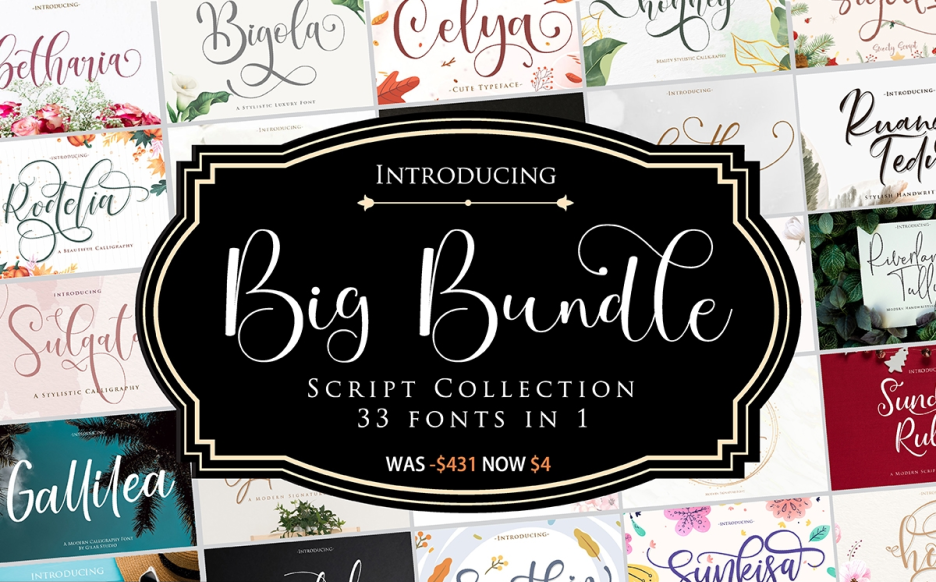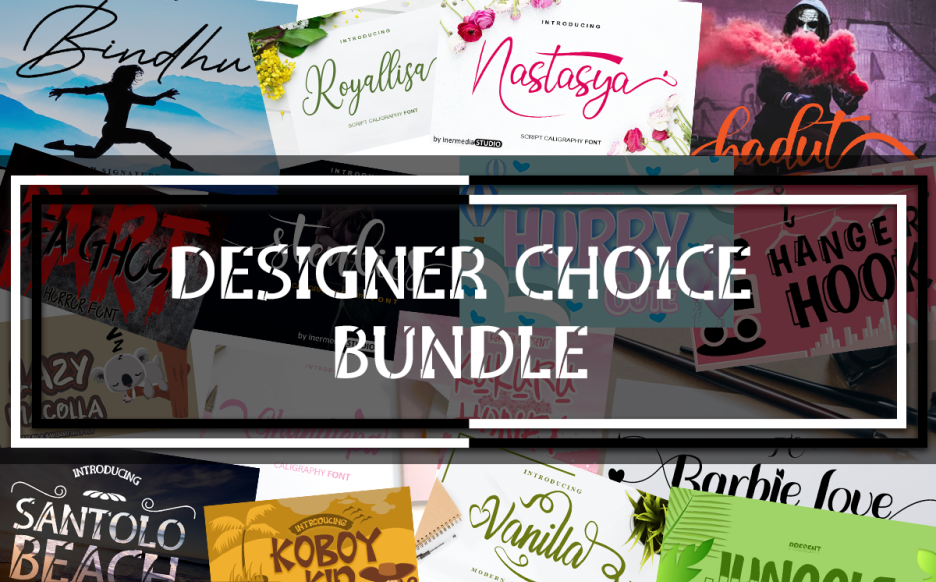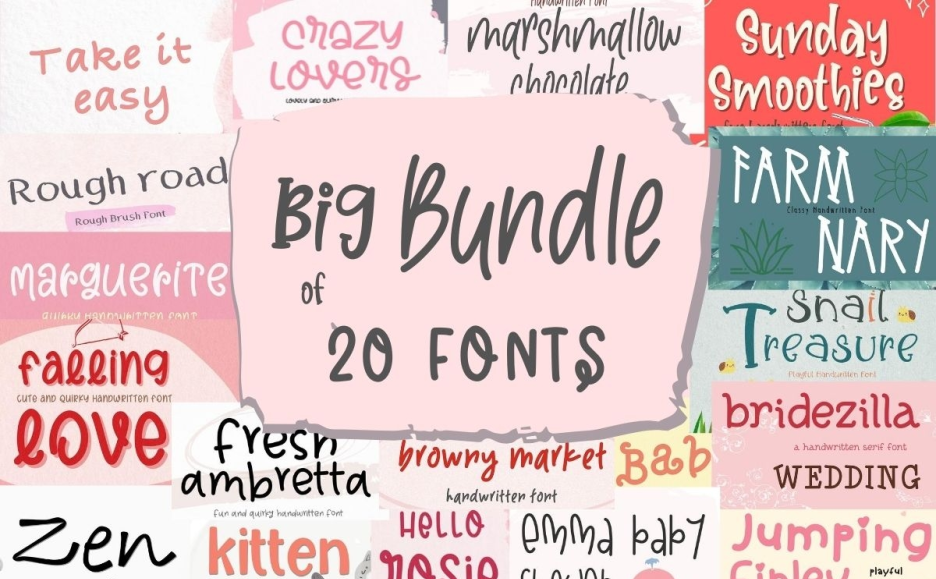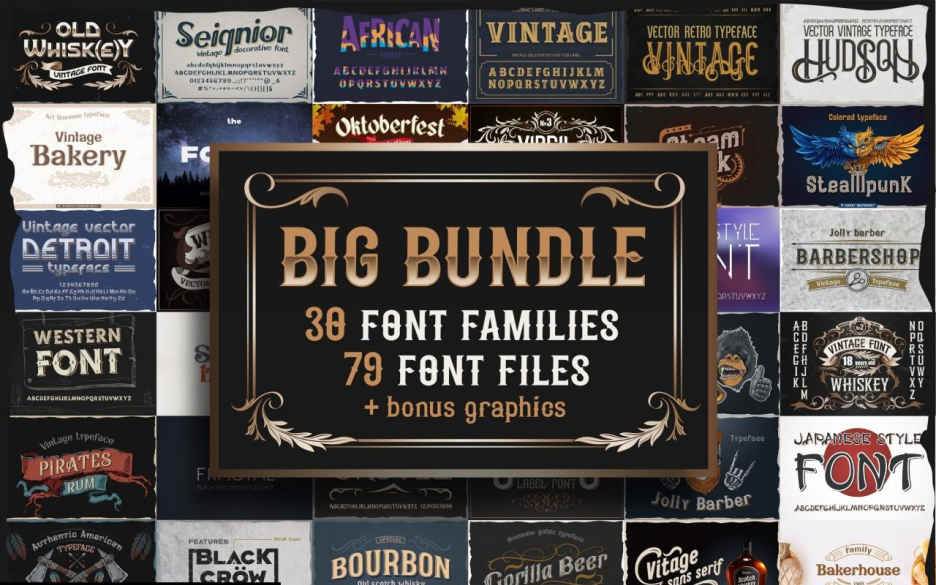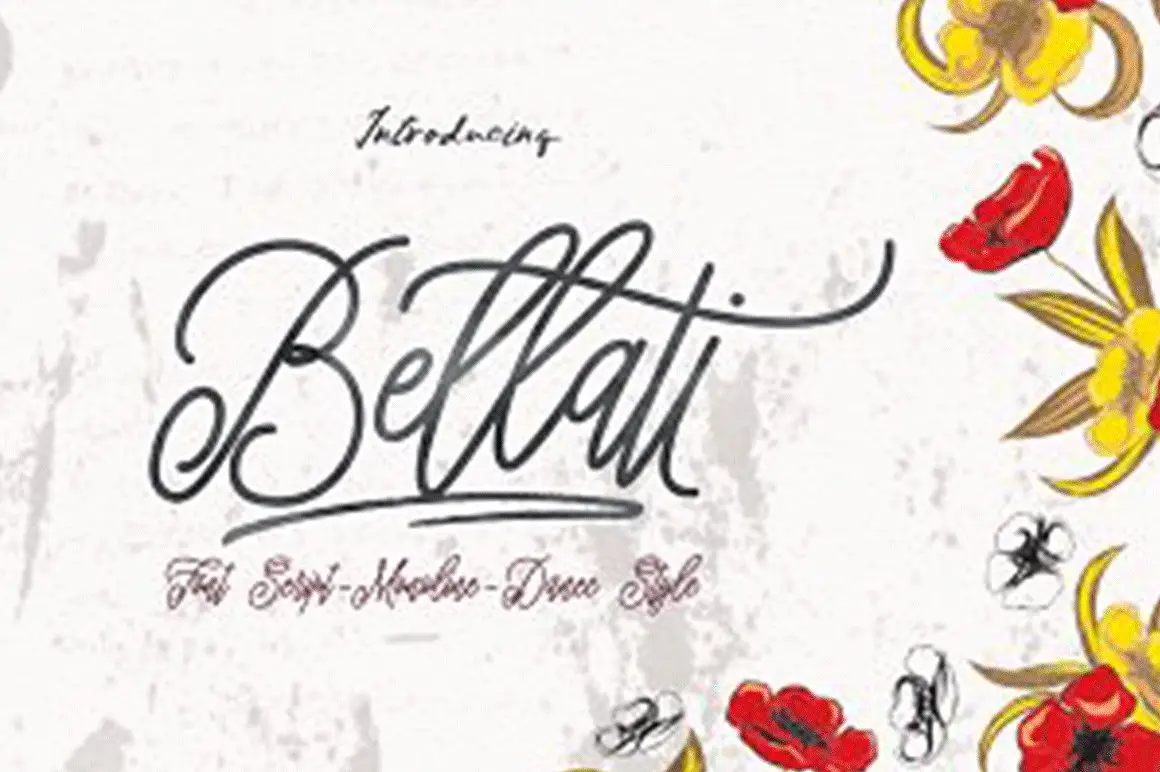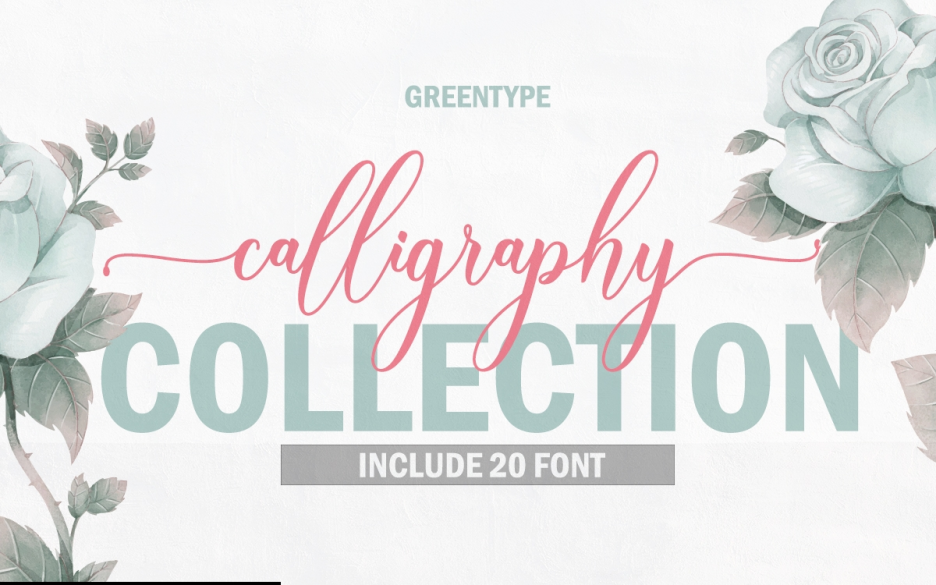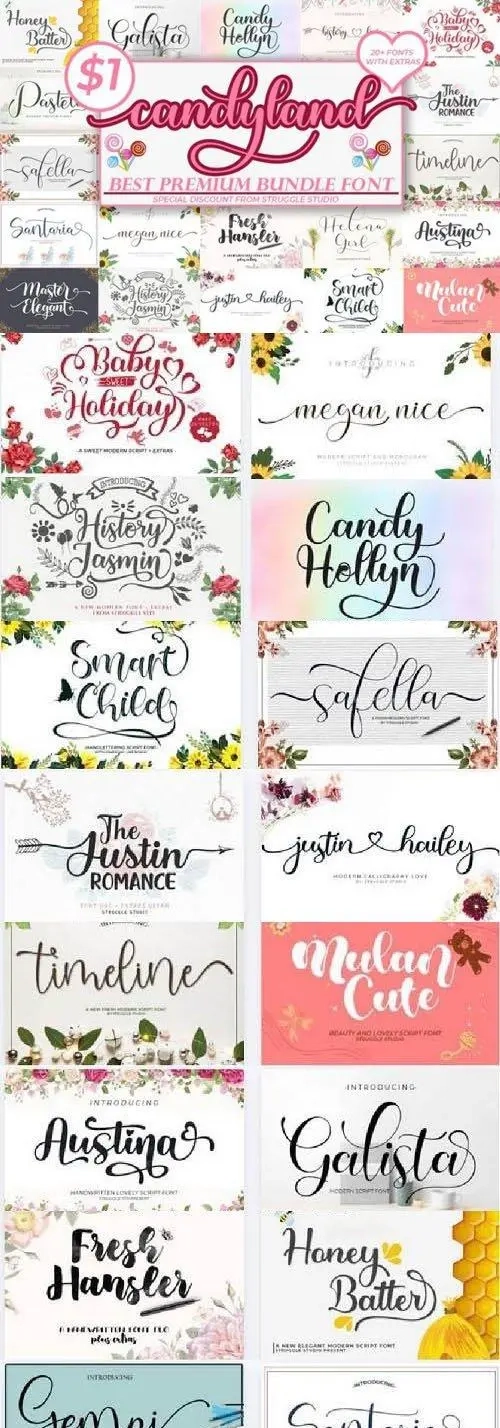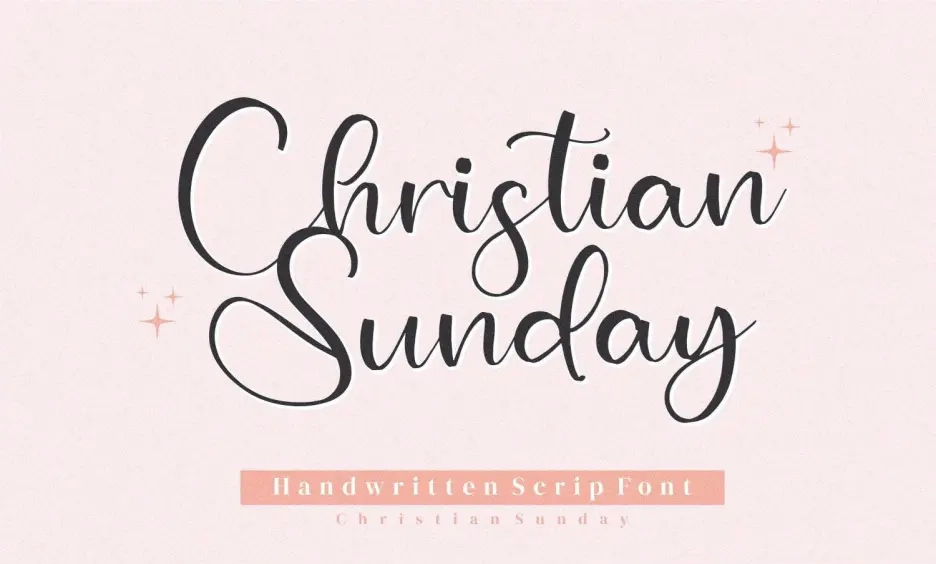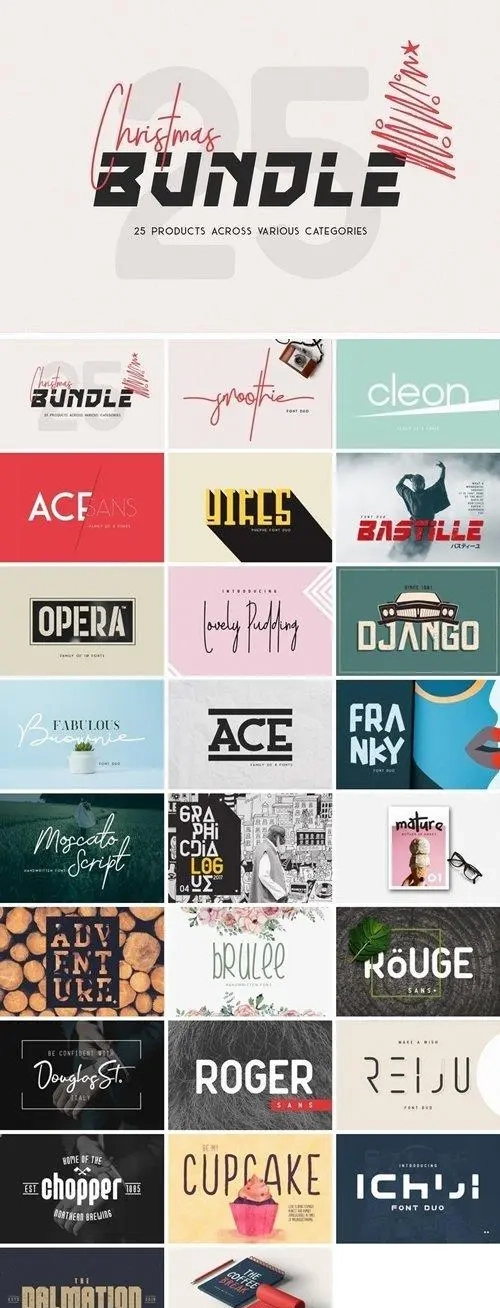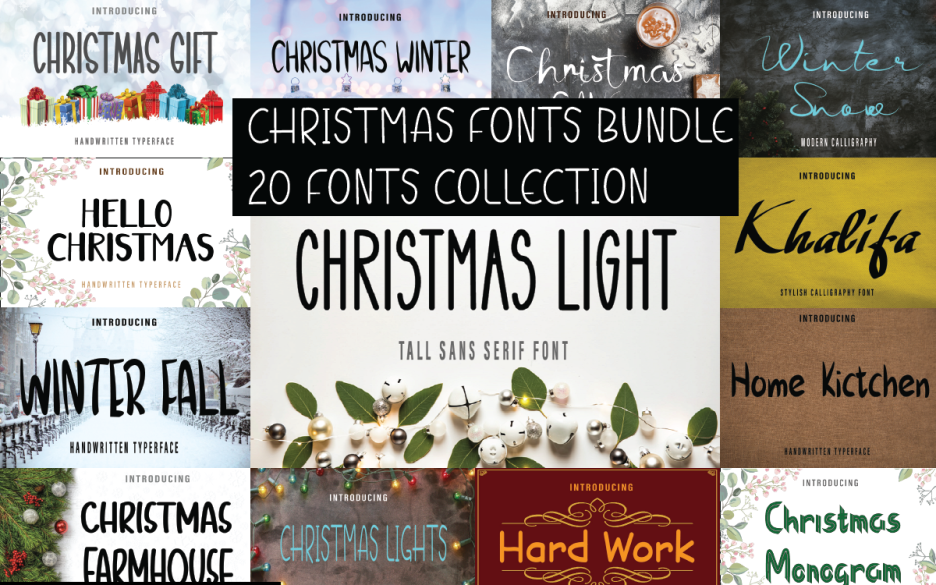
Bundle Your Creativity: Inside BrushesPack Collection Part 165’s Top 20 Font Finds 🌟
Welcome back, font lovers and design wizards! 🎨✨ If you’re anything like me, you know that the secret sauce to any jaw-dropping project is having the right typeface in your back pocket. BrushesPack has done it again with their Collection Part 165, and let me tell youβ€”this drop is absolutely packed with gems. From elegant calligraphy to playful holiday scripts, there’s a bundle here that will ignite your creativity and save you a ton of hunting time. πŸš€
Whether you’re branding a cozy coffee shop, designing a whimsical wedding invitation, or just building out your personal stash of design superpowers, these 20 font bundles are your ticket to typography heaven. Ready to dive in? Let’s explore the magic, one beautiful bundle at a time! πŸ–‹οΈπŸ’–
Why Use These Font Bundles? 🎯
Let’s be realβ€”building a font library from scratch is overwhelming. You end up with a chaotic mix of freebies and mismatched styles. These bundles from BrushesPack are curated with love, giving you cohesive, high-quality typefaces that work beautifully together. Whether you’re working on branding, web design, or print materials, having a variety of weights and styles at your fingertips means you’ll never have to settle for β€œgood enough” again. Plus, they’re all ready to download and use immediatelyβ€”no fuss, just pure creative flow. 🌊✨
Top 20 Font Bundle Picks from Collection Part 165 πŸ†
Calligraphy Bundle
Add instant elegance to your projects with this stunning calligraphy set! Perfect for logos, wedding invites, or any design that needs a touch of class. βœ¨πŸ–ŠοΈ
Exclusive Monoline Font Bundle
Clean, sleek, and modernβ€”this monoline bundle is a minimalist’s dream. Perfect for branding and web design that demands crisp, consistent lines. πŸ”₯πŸ“
Christmas Fonts Bundle
Get into the holiday spirit with festive scripts and playful display fonts! Ideal for cards, posters, and all your seasonal marketing magic. πŸŽ„πŸŽ…
Creative Fonts Bundle – 5 Fonts
Five unique fonts, each bursting with personality! Whether you need something bold or delicate, this bundle has you covered. 🎨✨
Cute Font Pack – 13 Fonts
Who doesn’t love a little charm? This pack of 13 adorable fonts is perfect for children’s books, fun posters, or any project that needs a playful touch. πŸ§ΈπŸ’–
Easter Vintage Font Bundle
Bring back the charm of yesteryear with this nostalgic collection. Perfect for Easter projects or any vintage-themed design! 🐣🌸
Big Fonts Bundle 2
Bigger is better when it comes to variety! This bundle packs serif, sans-serif, script, and display fonts all in one versatile set. πŸ’ͺπŸ“¦
Bundle Princes Collections Font
Feel like royalty with this regal mix of playful and elegant typefaces. Ideal for branding that needs to stand out! πŸ‘‘βœ¨
Bundle Fonts Colection
An all-in-one treasure chest of fonts! This collection gives you serif, sans-serif, script, and display styles to express any brand personality. πŸ—οΈπŸŽ­
December Font Bundle
Wrap up your year in style with this curated selection of script, serif, and sans-serif fonts. Versatile and beautiful! πŸŽβ„οΈ
Candyland – Best Premium Font Bundle – 23 Premium Fonts
Sweeten your font library with 23 premium fonts! From elegant scripts to bold displays, this bundle is pure eye candy. πŸ¬πŸŽ‰
Big Deal Bundle
It’s not just hypeβ€”this bundle really is a big deal! Packed with high-res graphics and templates, it’s a one-stop shop for pros. πŸ’ΌπŸ”₯
Christian Sunday Ge46Hv
Faith-based design has never looked this good! High-quality graphics and typography perfect for church events or religious materials. πŸ™βœ¨
Crafting Font Bundle Vol 02
Calling all crafters! This volume is filled with elegant scripts and bold displays that will make your DIY projects shine. πŸ§΅βœ‚οΈ
Creative Display Font Bundle (Vol 01)
Make a statement with bold, artistic display fonts! Perfect for logos, posters, and anything that needs to grab attention. 🎭πŸ’₯